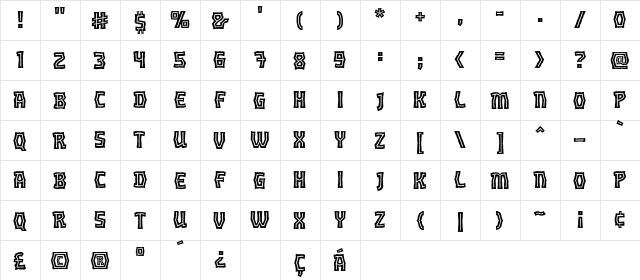
Orc Horde Inline BB Regular
| Foundry | Nate Piekos. Blambot.com |
| Designer | Nate Piekos |
Design Context for Orc Horde Inline BB Typeface
Orc Horde Inline BB brings ornamental detail and strong personality to headlines and identities, where visual impact matters more than quiet functionality.
Font Pairing: Pair with a clean neutral sans-serif for body copy to let Orc Horde Inline BB's character lead without overwhelming the composition.
Pro Tip: Treat Orc Horde Inline BB as the centrepiece of your typographic hierarchy. One strong heading set in a decorative face can carry an entire layout.